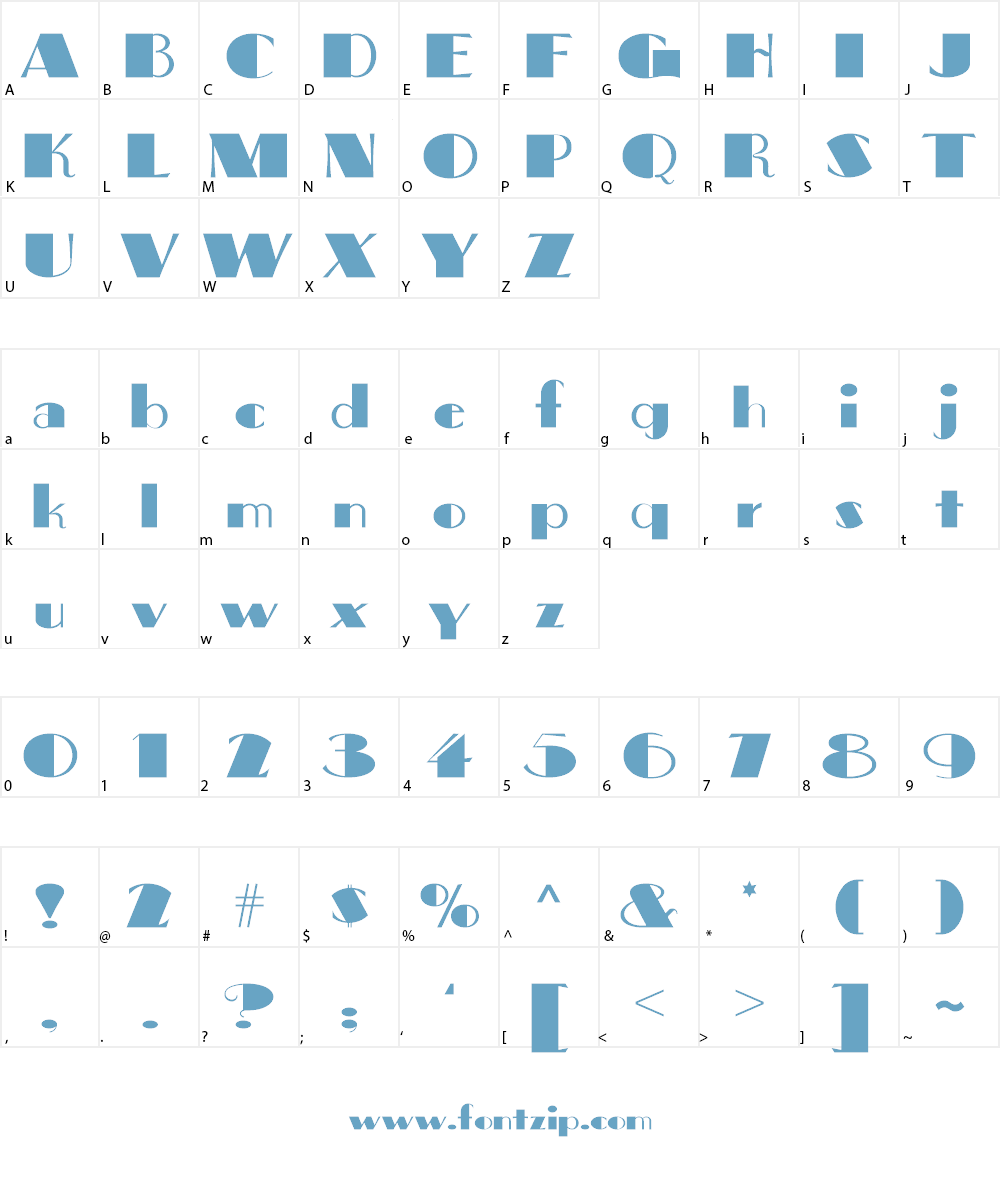
A big, bold, in-your-face kinda font. I wish I could credit the original designer, but I don’t have the information. I found the font in a Dover clipart book called Art Deco Initials. Evidently, the editor found several incomplete fonts from the era and, rather than publish them as partial type specimens, used what she had to create this book. The font has several characteristics that are similar to the logotype font for The New Yorker, hence the name.